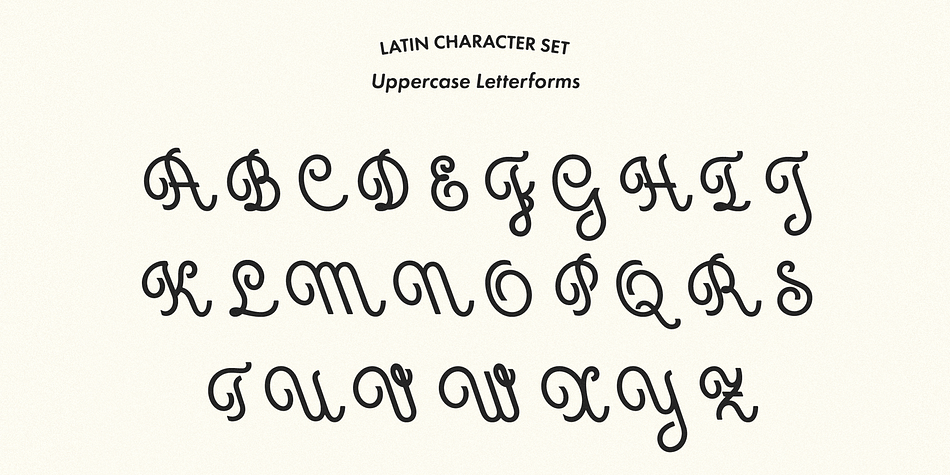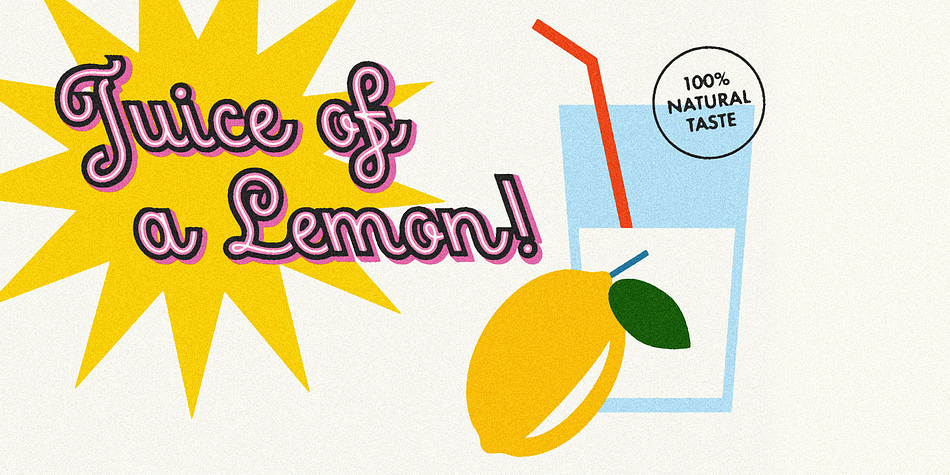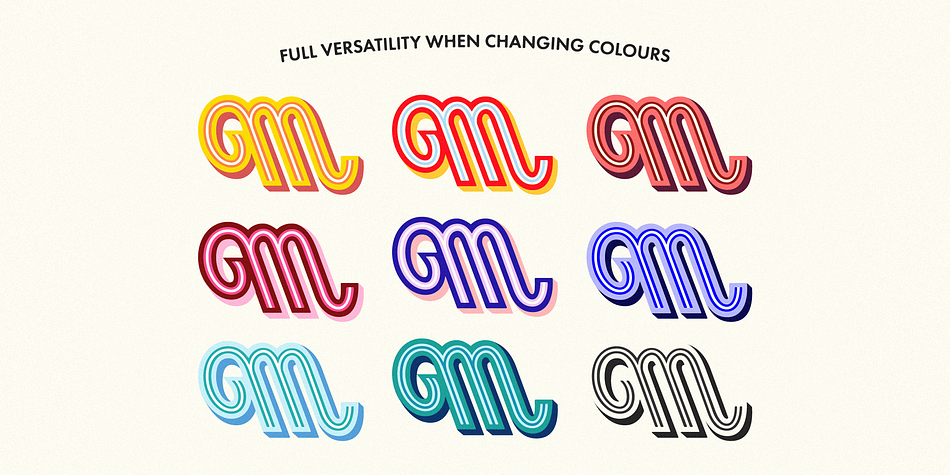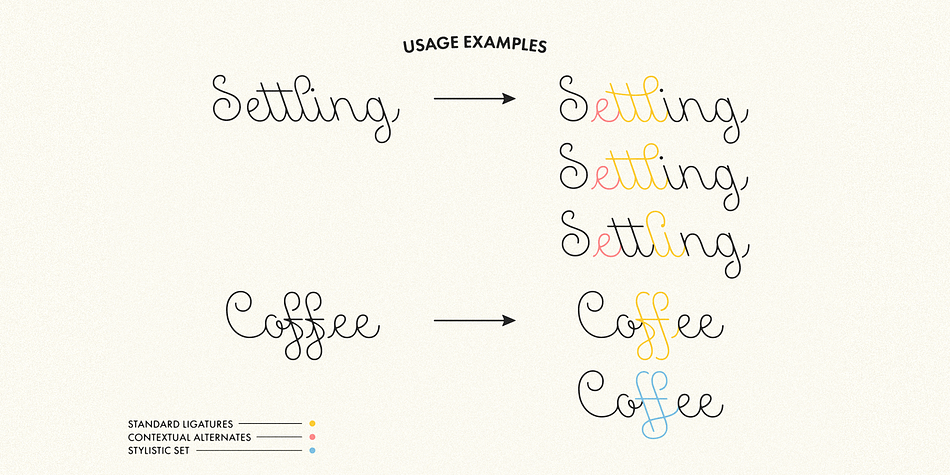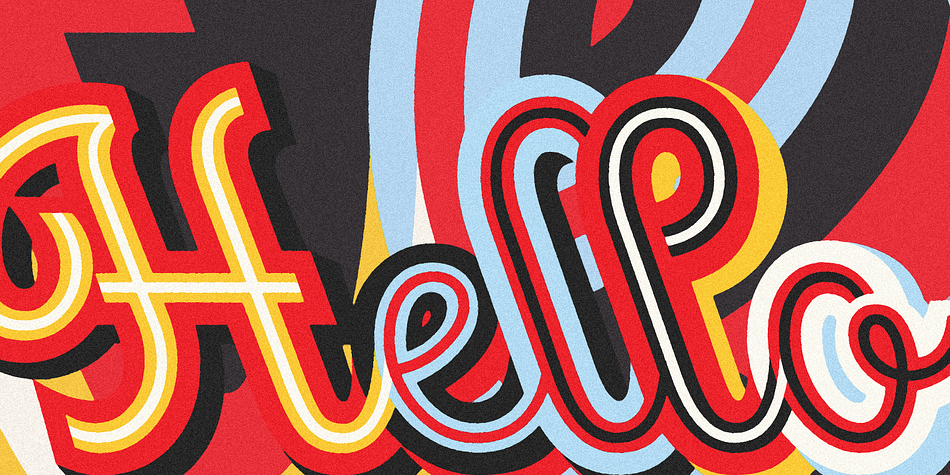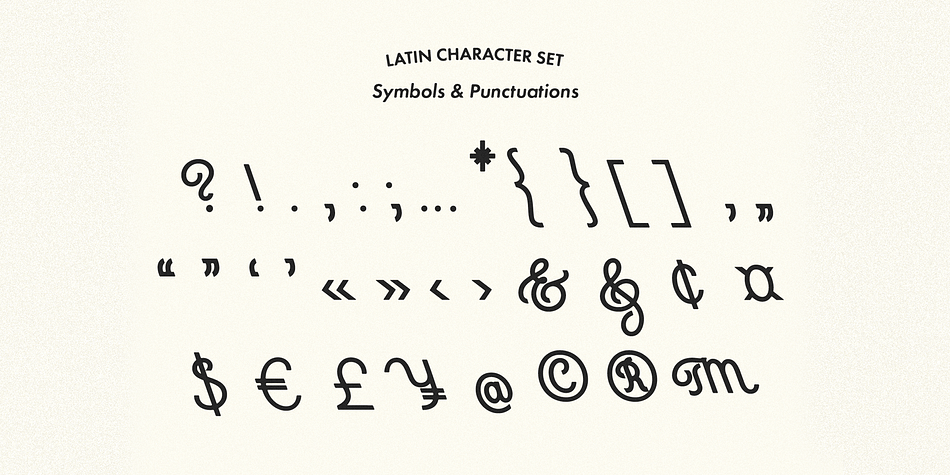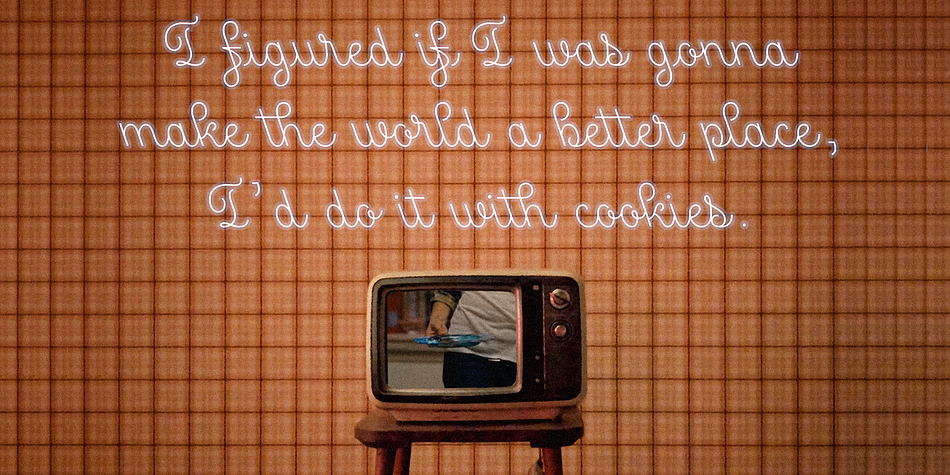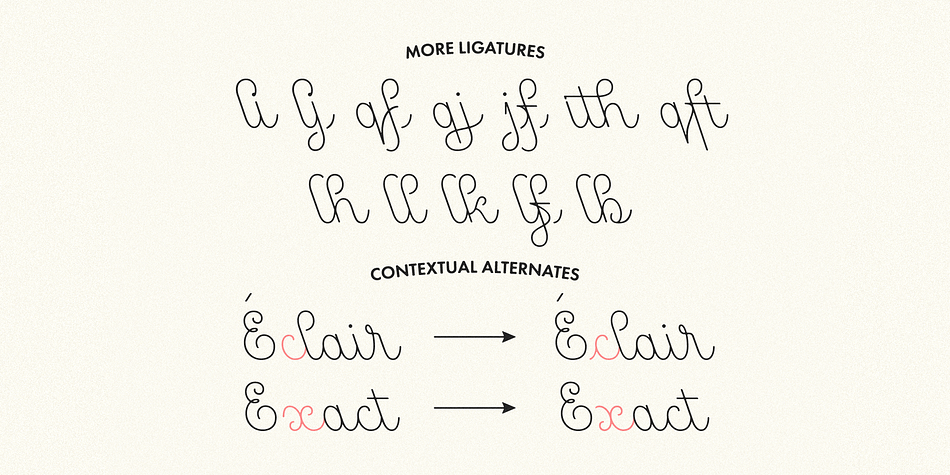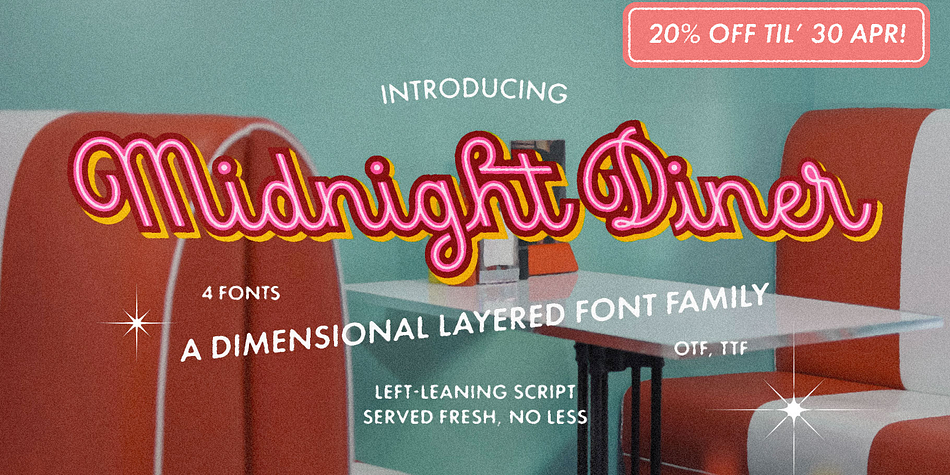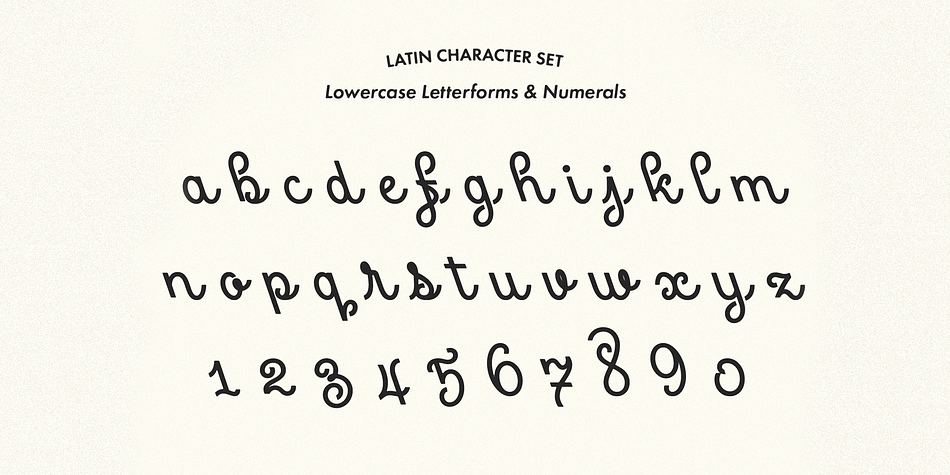
Designed by Roland Hüse and Leah Chong, Midnight Diner is a script font family. This typeface has ten styles and was published by Fonts by Roland Hüse.
Introducing: Midnight Diner!
A multi-layered dimensional script font family featuring thin, bold, outline and shadow capabilities, with a left-leaning slant to boot.
You can experiment with various layer combinations and colour! How fun is that? Being effortlessly casual, retro and elegant all in one, you can play it up or down to your liking – perfect for display graphics, logos, signages, packaging, lifestyle imagery, invitations and more.
It features a diverse range of stylistic alternates, contextual alternates, and standard ligatures, ensuring that you’ve countless options to choose from for your design work. This font family is delicately crafted and well thought out with every little detail in mind, to ensure its ease and versatility when used!
Font Features:
Latin character set: Uppercase & Lowercase A - Z
Stylistic Alternates
Contextual Alternates
Standard Ligatures
Numerals, Currency Symbols & Punctuation
Accented Characters